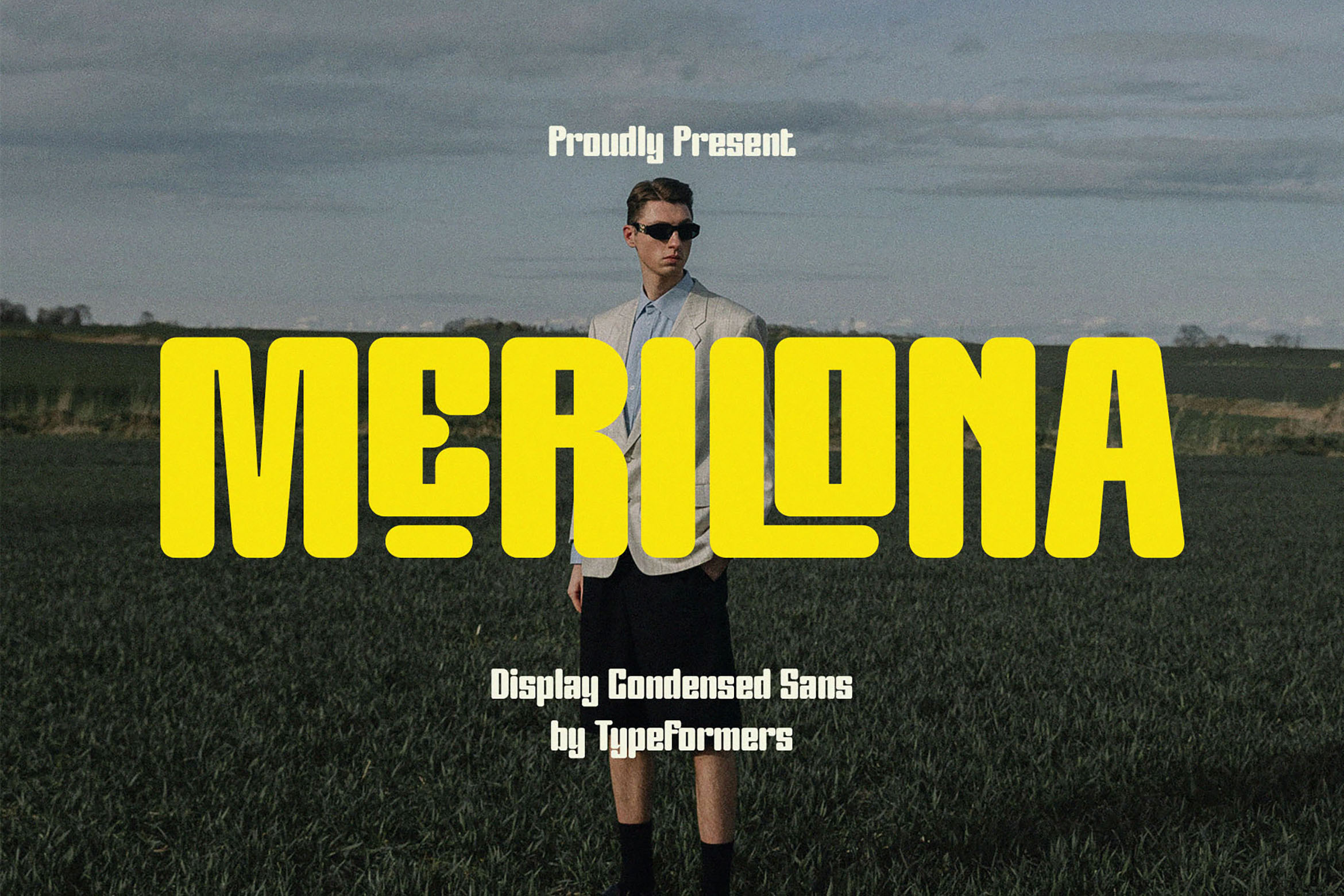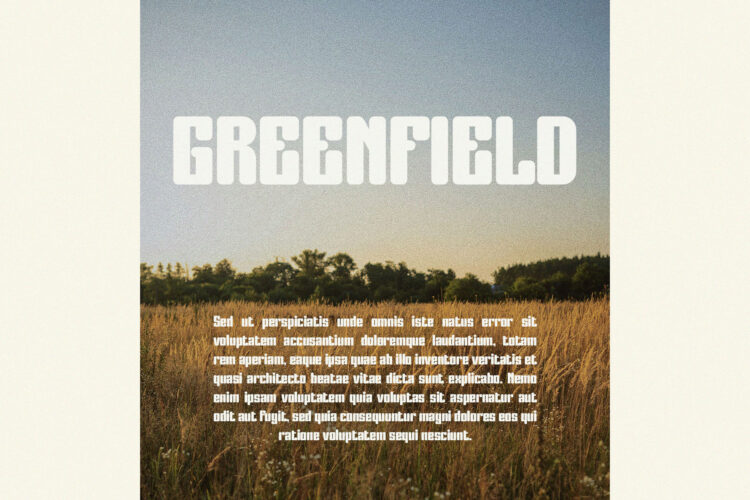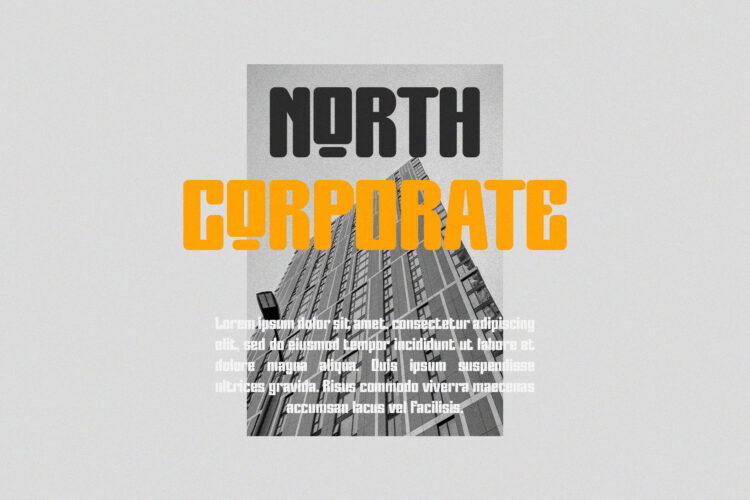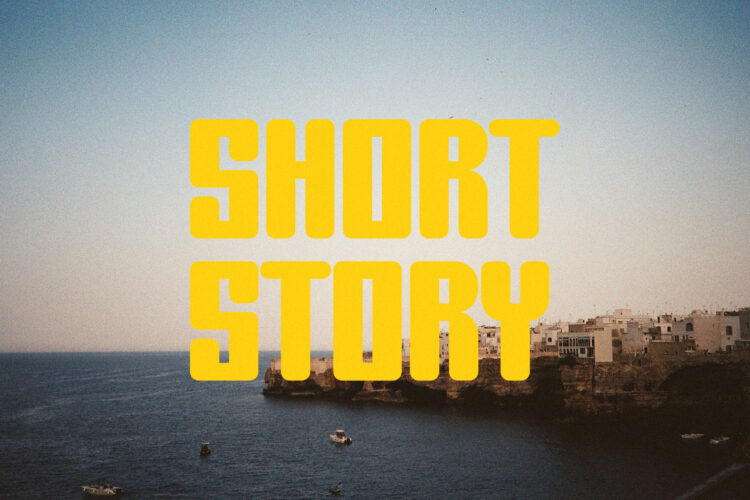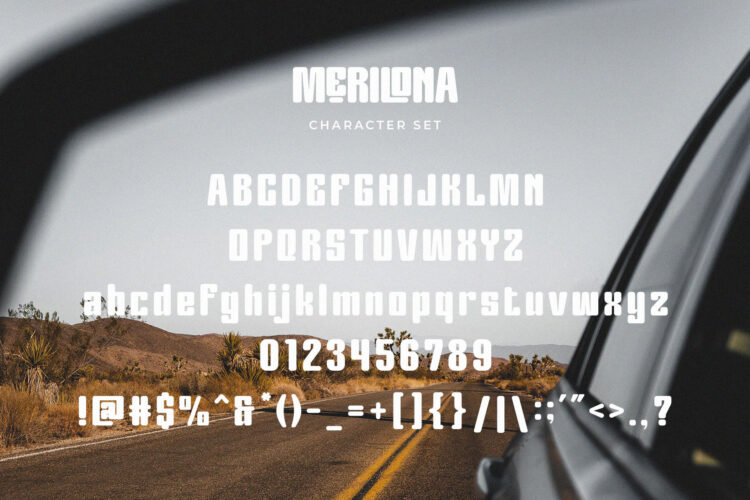
Introducing Merilona – Display Condensed Sans Serif.
Merilona is a modern and simple font, best used as a display for headings, logos, branding, magazines, product packaging and invitations.